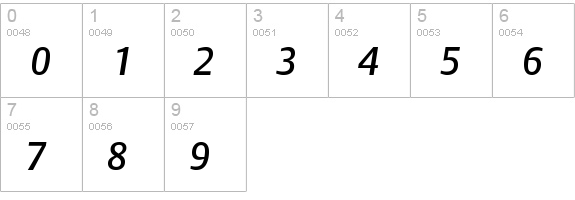
DTLArgoT-MediumItalic Font Details
Discover the elegance and sophistication of DTLArgoT-MediumItalic font, a stylish typeface that exudes modernity and flair. With its sleek curves and unique design, this font is perfect for adding a touch of sophistication to any project. Whether you're designing a website, creating a logo, or crafting a marketing campaign, DTLArgoT-MediumItalic font is sure to make a statement. What sets this font apart is not only its striking appearance but also its versatility. It can be used for a variety of purposes, from print materials to digital designs. The italicized style adds a touch of drama and emphasis, making your text stand out and capture attention. Best of all, DTLArgoT-MediumItalic font is available for free download at FontsMarket.com. This means you can easily access this high-quality font and incorporate it into your projects without any cost. Don't miss out on the opportunity to elevate your designs with the sleek and stylish DTLArgoT-MediumItalic font. Download it today and let your creativity shine.